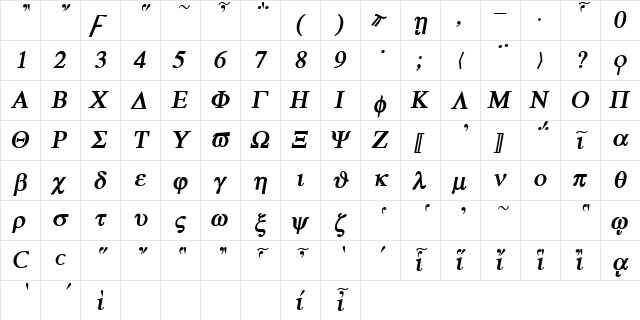
Atene BoldItalic Font Preview
Atene BoldItalic
Atene BoldItalic Font Details
Design Context for Atene Typeface
Atene offers clean, dependable letterforms without strong stylistic allegiance, making it a practical choice for designers who need flexibility. The dynamic lean of this cut emphasises speed and emphasis in any layout. Its bold stroke weight gives it real presence on the page.